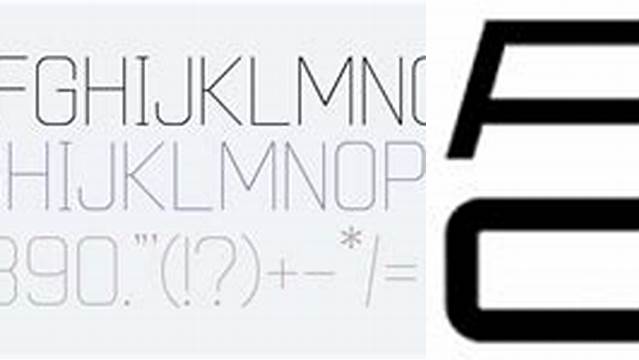
Free Protakt Extra Bold Font Download Guide
Protakt Variable Extra Bold Exp Four Font: Free Download Guide for Designers
What Makes Protakt Variable Extra Bold Exp Four Font Special?
First things first, let's talk about what makes the Protakt Variable Extra Bold Exp Four font so special. This isn't your average, run-of-the-mill typeface. This font is designed to be used. With its variable weight and expanded design, it offers a wide range of design options that are sure to capture the viewers' eyes. The variable aspect means you have the flexibility to adjust the weight of the font, from extra bold to something more nuanced, giving you unparalleled control over its appearance. This flexibility is a game-changer, guys, allowing you to fine-tune the font to perfectly match your design's needs. Plus, the expanded design means it has a wider set of characters, which is a must-have for creating impactful headlines and titles. It’s the perfect way to achieve that bold and eye-catching look, making your text pop in any project!
But, what are the particular features? The Protakt Variable Extra Bold Exp Four font boasts a unique blend of modern and classic design elements. Its extra bold weight ensures maximum impact, while the expanded width adds a touch of sophistication. This combination creates a font that is both powerful and refined, suitable for a variety of design applications. Whether you're designing a poster, a website header, or a social media graphic, this font will give your project an edge. Moreover, the variable nature of the font allows for seamless integration with different design elements, and the wide set of characters includes all of the special characters and symbols that you might need. This font is really user-friendly. The font's readability is another key feature. Despite its bold appearance, it remains legible even at smaller sizes. This makes it a great choice for both headlines and body text. It provides designers with a versatile and effective tool for creating visually stunning and engaging content. The attention to detail in its design makes it a premium font. It is like an instrument in the hands of a skilled musician; with its amazing features, you can deliver a masterpiece. The best part? It is available for a free download!
Using Protakt Variable Extra Bold Exp Four Font in Your Designs
Once you've successfully downloaded and installed the Protakt Variable Extra Bold Exp Four font, the fun part begins: using it in your designs! This font is incredibly versatile and can be used in a wide range of applications. Let's explore some ideas to get your creative juices flowing. First off, the most obvious application for the Protakt Variable Extra Bold Exp Four font is for headlines and titles. Its extra bold weight and expanded design make it perfect for grabbing attention. Whether you're creating a poster, a website header, or a social media graphic, this font will make your message stand out. It's ideal for creating visually stunning headlines that are sure to capture your audience's attention.
But don't stop there! The font can also be used for subheadings, call-to-action buttons, and even short blocks of text. Its readability ensures that your message remains clear and easy to understand, even at smaller sizes. The font is very adaptable. Consider using it for creating logos and branding materials. Its unique design will help you create a memorable and distinctive brand identity. When you want a bold and modern look, this font is the perfect choice. If you're working on a website, experiment with using the font for navigation menus or important calls to action. It can guide users through the site and highlight key information. This could encourage interaction and increase conversions. For print projects, like flyers, brochures, or business cards, the font's bold appearance will make your message hard to miss. With its expanded design, you can create a bold and eye-catching layout that is sure to impress. If you are using it for a project, make sure to experiment with different weights and styles to achieve the perfect look for your project. From extra bold for maximum impact to lighter weights for a more subtle approach, this variable font provides you with endless possibilities. Have fun!
Tips for Optimizing Protakt Variable Extra Bold Exp Four Font Usage
Alright, let's level up your Protakt Variable Extra Bold Exp Four font game with some optimization tips. The key to effective font usage is not just about choosing the right font but also about how you use it. The first tip is to embrace the power of contrast. Pair the Protakt Variable Extra Bold Exp Four font with a lighter or more delicate font to create visual interest and balance. The contrast between the bold headline and the body text will make your design more dynamic and engaging. A well-chosen contrast enhances the overall aesthetic appeal and improves readability. Next, think about spacing. Adjust the letter spacing (kerning) and line height (leading) to optimize readability. The Protakt Variable Extra Bold Exp Four font, with its expanded design, may require more generous spacing to prevent letters from overlapping and becoming difficult to read. By carefully adjusting the spacing, you can ensure that your text remains legible and visually appealing.
Then comes color usage. Consider how the color of your text interacts with the background. This is super important! A high contrast between the font color and background color is essential for readability. Avoid using the font on busy backgrounds or in colors that are too similar to the background. A solid color or a gradient that complements the font will ensure that the text remains easy to read. If you're designing for digital platforms, keep an eye on the font's weight. It's designed to be bold, which works great, but it can also become heavy if you're not careful. Play with the different weights to find the right balance for your needs. When working with the Protakt Variable Extra Bold Exp Four font, try to combine its strengths with careful design choices. Be creative and enjoy the process! Always proofread your text. Before you finalize your design, double-check for any errors or typos. A well-designed font will only be effective if the message is clear and error-free. So, always give your work a final once-over before publishing it. When combined with the right design elements, this font will really stand out!
Conclusion: Unleash Your Creativity
So there you have it, guys! The Protakt Variable Extra Bold Exp Four font is a powerful tool for any designer. Its unique features, free availability, and versatility make it an excellent choice for a wide range of projects. Now, you're equipped with the knowledge and resources you need to download and use this amazing font safely and effectively. Whether you're a seasoned designer or just starting out, this font is sure to bring your designs to life. This font is designed to be a perfect fit for all of your projects. So, go ahead, download the font, and unleash your creativity! Happy designing, and have fun creating something amazing. Embrace the boldness, the creativity, and the opportunity to create something truly outstanding. The world of design is yours for the taking! Enjoy!